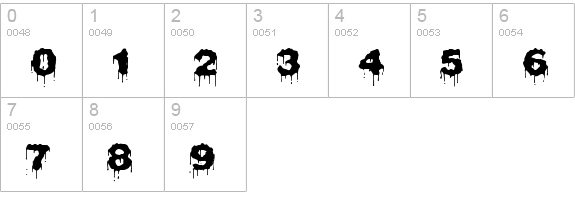
Plasma Drip BRK font, with its mesmerizing and electrifying design, is an absolute game-changer in the world of typography. This captivating typeface brings a unique and dynamic feel to any project, making it perfect for eye-catching headlines, posters, and branding materials. Plasma Drip BRK font features bold and fluid letterforms, inspired by the electrifying movement of plasma in a captivating display. The letters seem to drip and melt, creating an intense and vibrant visual experience. Each character is meticulously crafted to maintain legibility while still exuding a sense of energy and excitement. What sets Plasma Drip BRK font apart is not only its stunning aesthetics but also its accessibility. This font is freely available to download at FontsMarket.com, making it a valuable asset for designers, artists, and enthusiasts alike. Whether you're working on a personal project or a professional venture, Plasma Drip BRK font will undoubtedly elevate your creations to new heights. The versatility of Plasma Drip BRK font knows no bounds. It seamlessly adapts to various design styles, from futuristic and sci-fi themes to edgy and bold concepts. Its bold and vibrant presence demands attention and adds a touch of modernity to any design. With Plasma Drip BRK font, you have the power to unleash your creativity and captivate your audience. This font is a true game-changer, evoking a sense of excitement and energy that will leave a lasting impression. Embrace the electrifying charm of Plasma Drip BRK font and watch your designs come to life in a stunning and impactful way. Download Plasma Drip BRK font for free at FontsMarket.com and embark on a typographic journey that will revolutionize your creative endeavors. Let the electrifying energy of this font ignite your imagination and set your designs apart from the rest. Don't miss out on the opportunity to add this remarkable and freely available font to your collection.